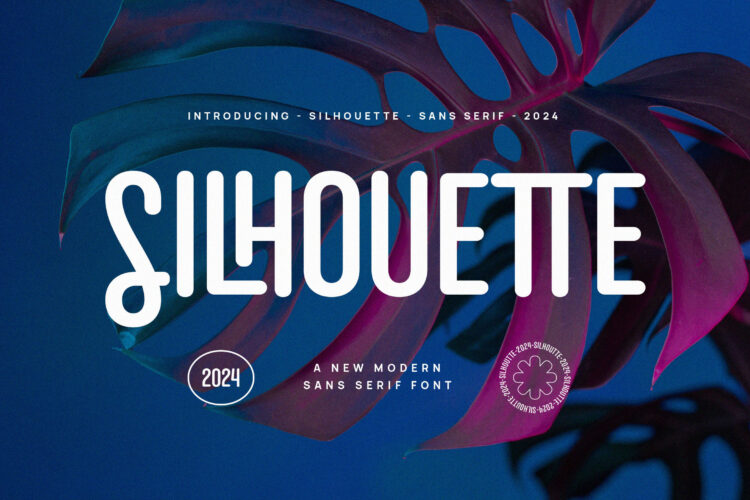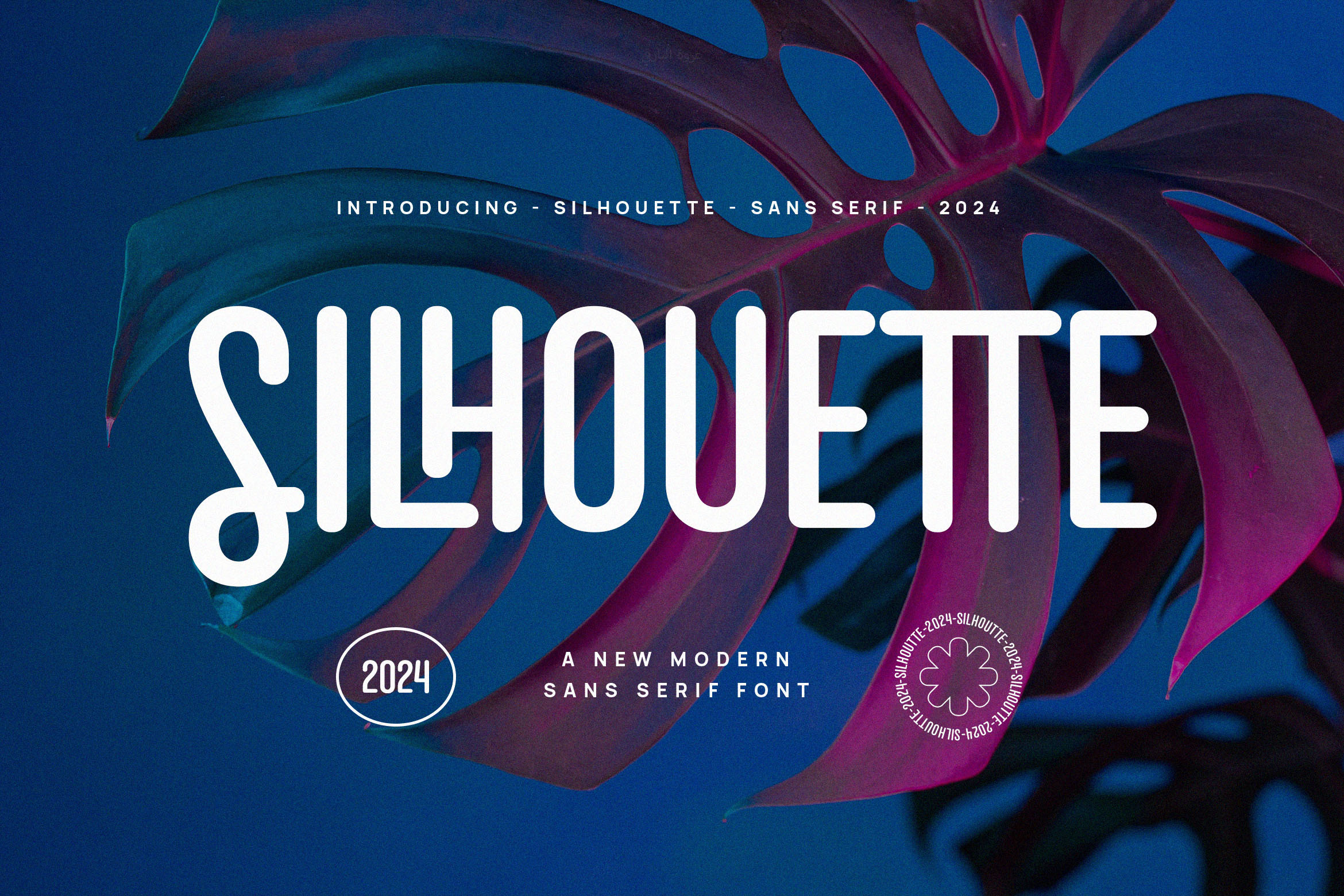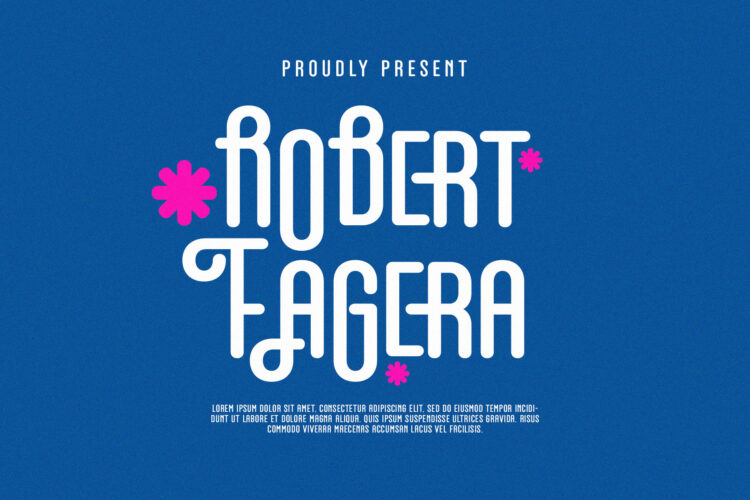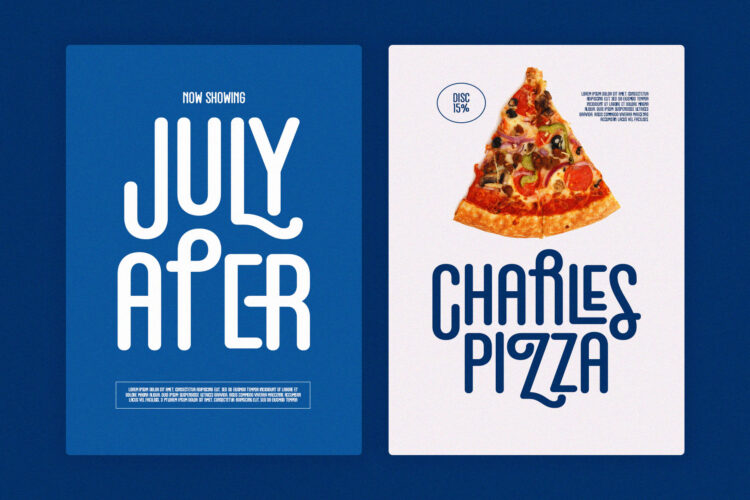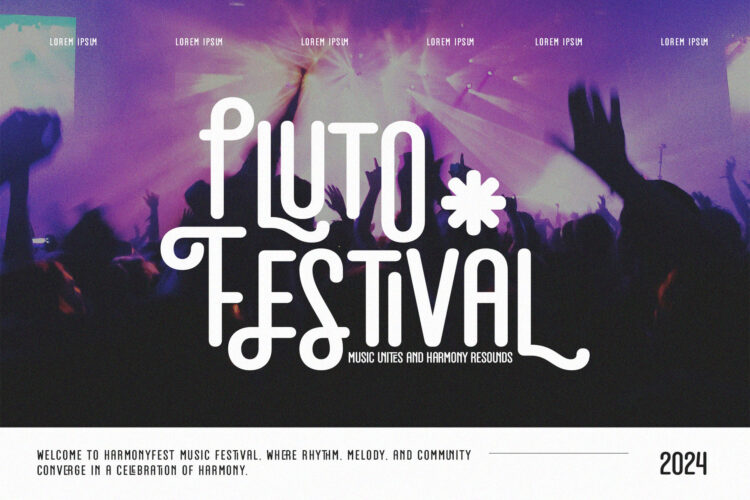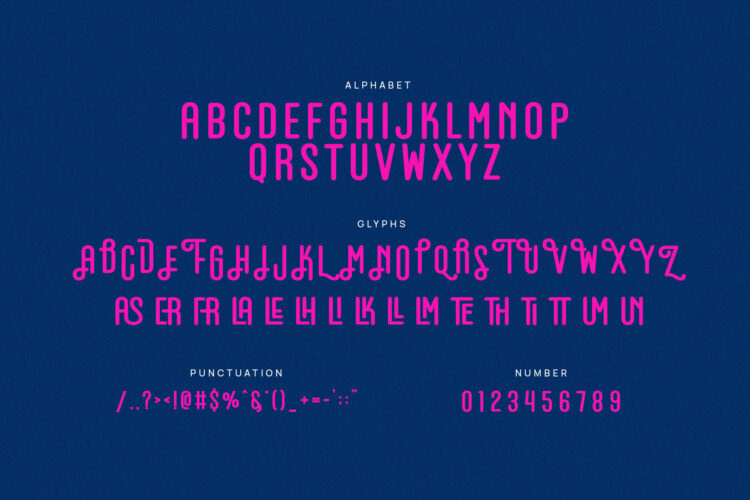
Introducing Silhouette – Modern Display Sans Serif.
Silhouette is a modern and simple font, best used as a display for headings, logos, branding, magazines, product packaging and invitations.